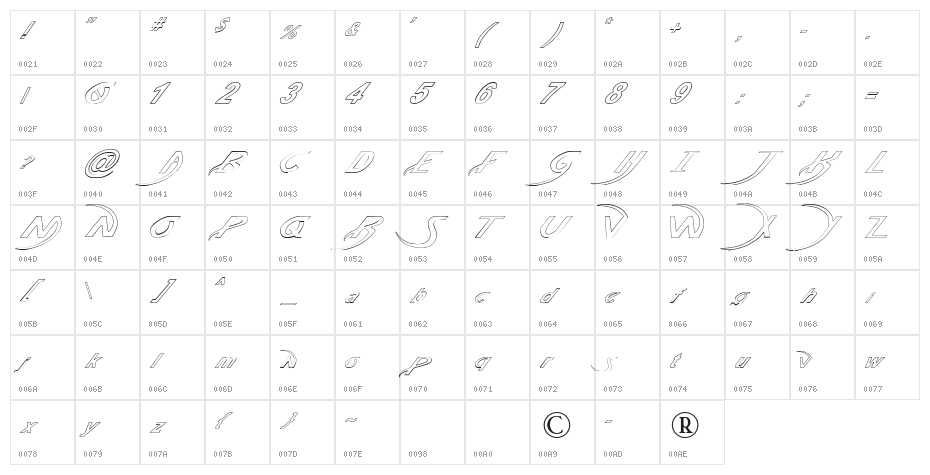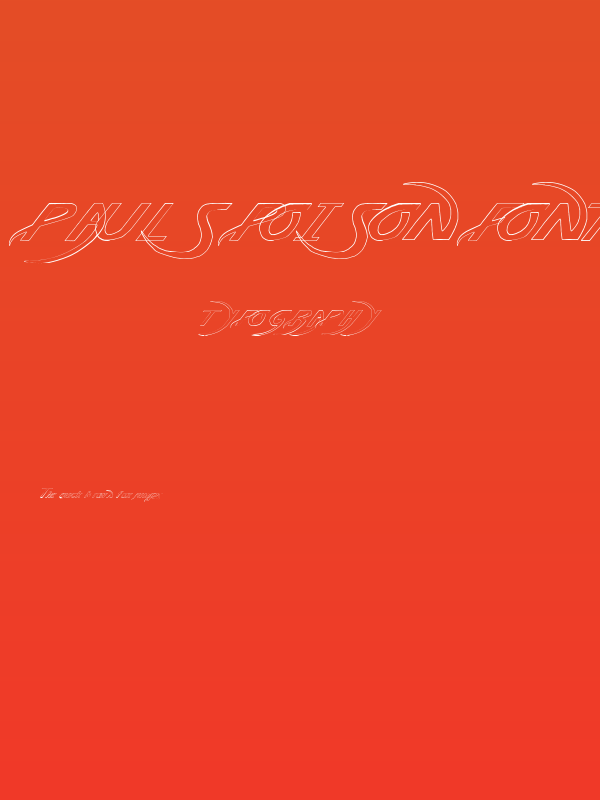
Pauls Poison Font Italic Font
Pauls Poison Font Italic Description
This font features a dynamic and fluid design with a distinct italic slant, giving it a sense of motion and elegance. The characters are crafted with sharp, angular edges and smooth curves, creating a harmonious balance between rigidity and flow. The uppercase letters are bold and commanding, while the lowercase letters maintain a consistent style with slightly softer lines. Numbers and special characters are designed to match the overall aesthetic, ensuring a cohesive look across all text. The font's unique style makes it stand out, perfect for creative and artistic projects.
| Proposed Projects | Ideal for branding, posters, album covers, and any project requiring a bold, artistic touch. |